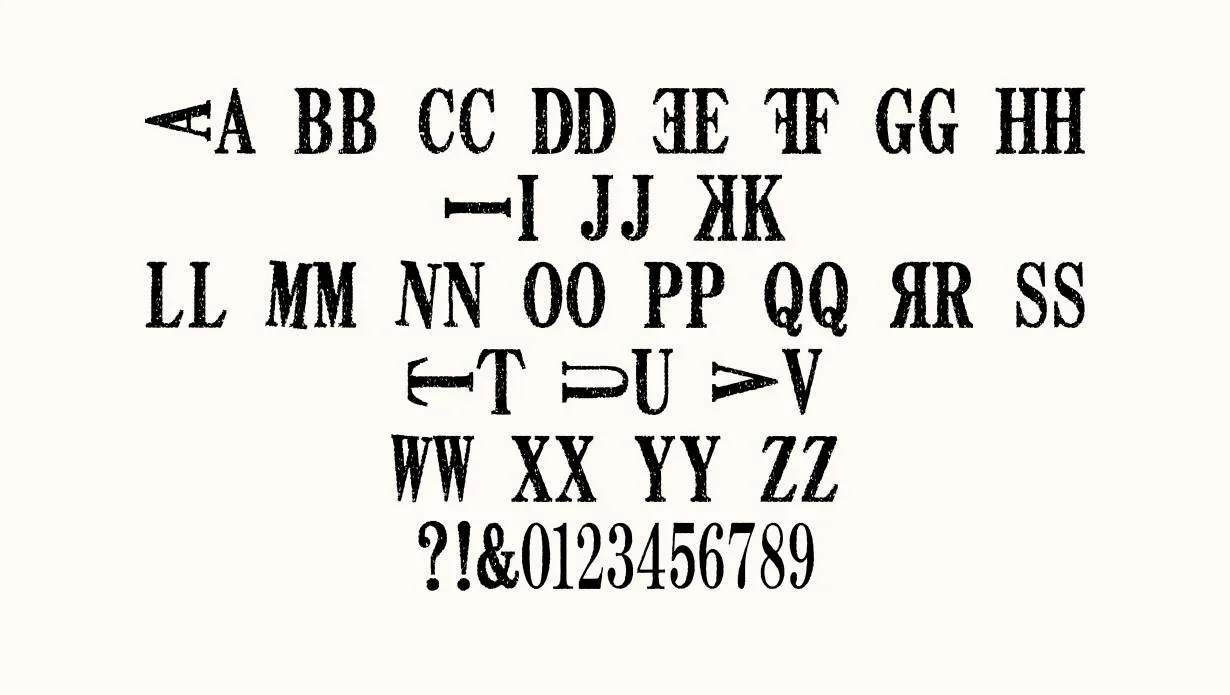
The Death Font carries a mysterious and Gothic aura, ideal for projects embracing dark aesthetics or Halloween-themed designs. Its eerie characters provide a macabre touch, adding an element of mystery.
| Name | Death Font |
| Designer | Alexander Winkelmann |